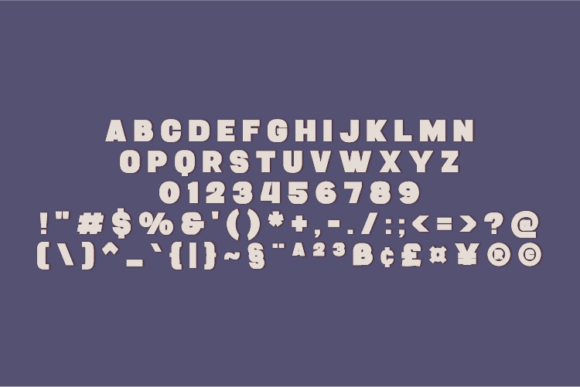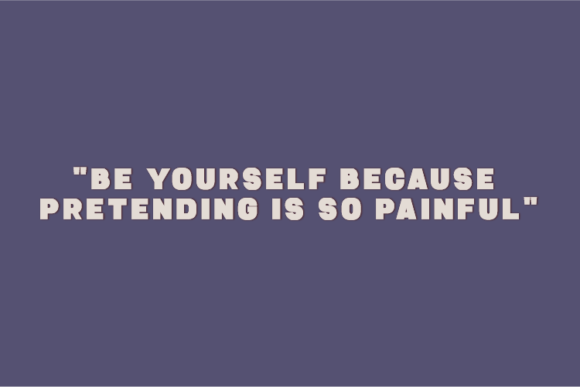
Introducing Dominic Vintage Font: The Ultimate Sans Serif Solution for Creative Projects
In the world of typography, a good font can make all the difference in the success of a design project. Whether you’re a seasoned designer or a crafty DIY enthusiast, finding the right font can be a daunting task. That’s why we’re excited to introduce Dominic Vintage Font, an amazing all-caps sans serif font that’s versatile, smooth, and clean. In this article, we’ll explore the features and benefits of Dominic Vintage Font, and why it’s the perfect choice for your next creative project.
What is Dominic Vintage Font?
Dominic Vintage Font is a stunning all-caps sans serif font that’s designed to impress. Its sleek and modern design makes it perfect for a wide range of creative applications, from logos and branding to web headings and more. With its smooth and clean lines, Dominic Vintage Font is sure to add a touch of sophistication and elegance to any design project.
Key Features of Dominic Vintage Font
• All-caps design: Dominic Vintage Font is an all-caps font, making it perfect for headlines, titles, and other display text.
• Sans serif design: The font’s sans serif design gives it a clean and modern look that’s perfect for a wide range of creative applications.
• Smooth and clean lines: The font’s smooth and clean lines make it easy to read and add a touch of sophistication to any design project.
• Versatile: Dominic Vintage Font is versatile and can be used in a wide range of creative contexts, from logos and branding to web headings and more.
Why Choose Dominic Vintage Font?
So why choose Dominic Vintage Font for your next design project? Here are just a few reasons:
• Perfect for logos and branding: Dominic Vintage Font is perfect for creating stunning logos and branding materials that will help your business stand out.
• Great for web headings: The font’s clean and modern design makes it perfect for web headings, adding a touch of sophistication and elegance to any website.
• Easily readable: The font’s smooth and clean lines make it easy to read, even at small sizes.
• Unique and creative: Dominic Vintage Font is a unique and creative font that will add a touch of personality to any design project.
How to Use Dominic Vintage Font
Using Dominic Vintage Font is easy. Here are a few tips to get you started:
• Use it for headlines and titles: Dominic Vintage Font is perfect for headlines and titles, adding a touch of sophistication and elegance to any design project.
• Pair it with other fonts: The font pairs well with other fonts, making it easy to create stunning multi-font designs.
• Experiment with different sizes: Dominic Vintage Font looks great at a wide range of sizes, from small to large.
In conclusion, Dominic Vintage Font is an amazing all-caps sans serif font that’s perfect for a wide range of creative applications. Its smooth and clean design makes it easy to read and adds a touch of sophistication and elegance to any design project. Whether you’re a seasoned designer or a crafty DIY enthusiast, Dominic Vintage Font is a great choice for your next project. So why wait? Download Dominic Vintage Font today and start creating stunning designs that will leave a lasting impression.